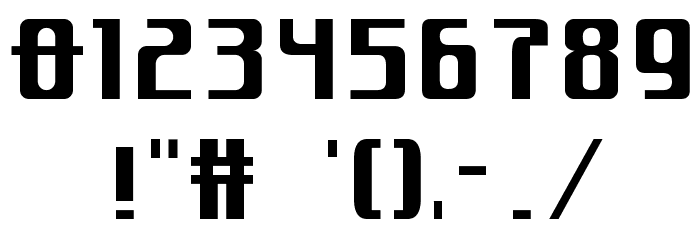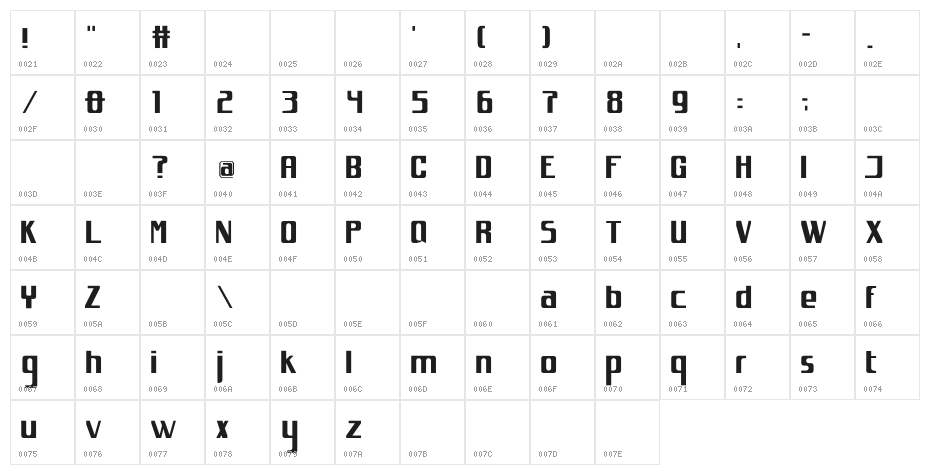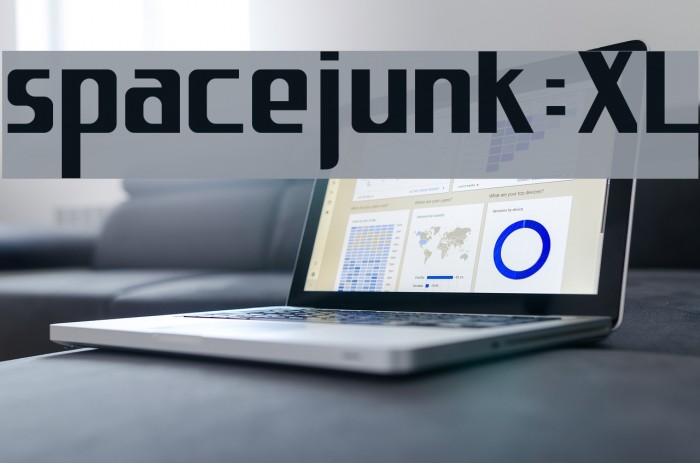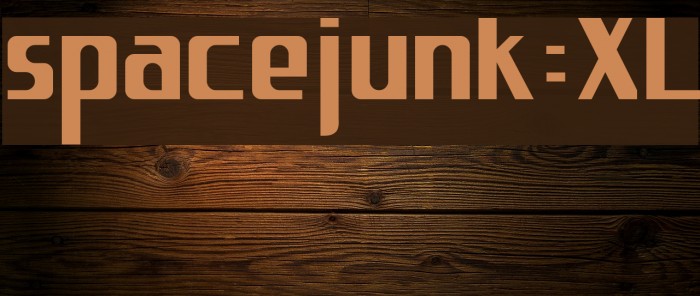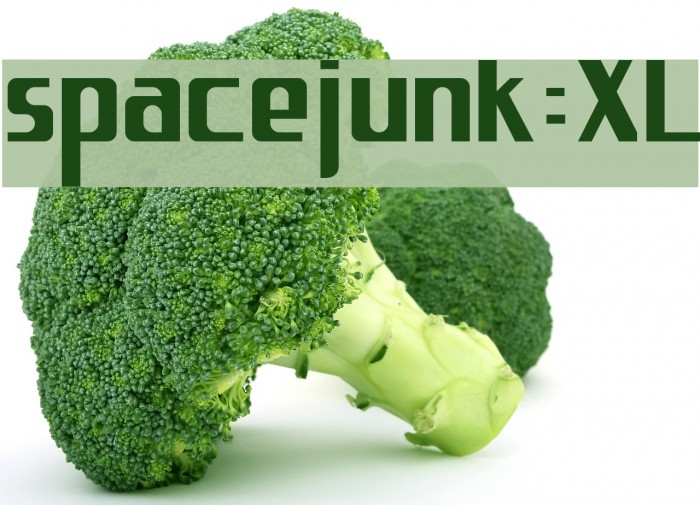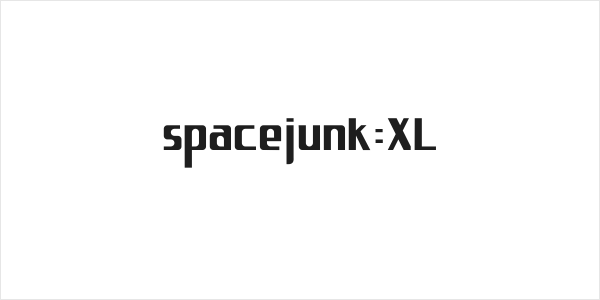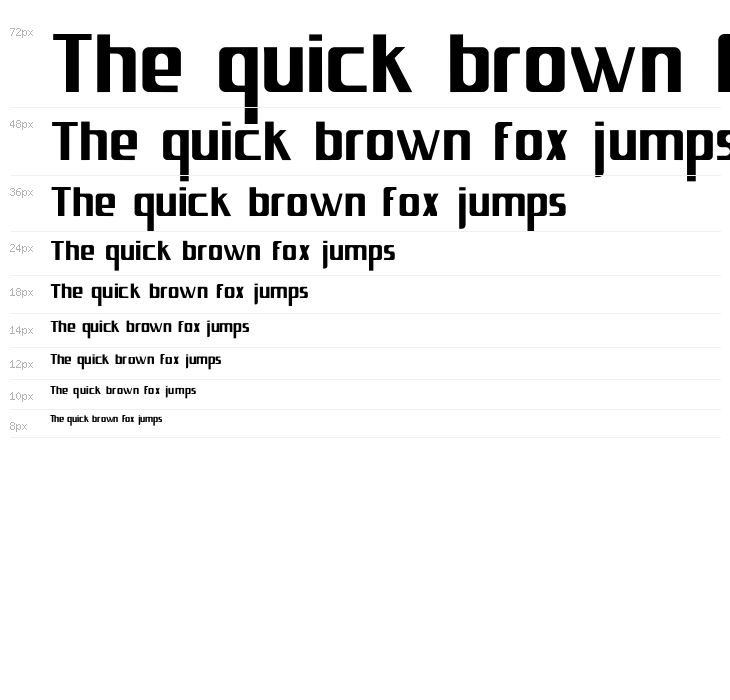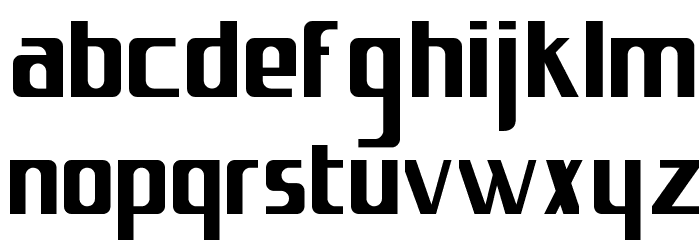
spacejunk:XL Font
spacejunk:XL Description
This font features a bold and modern design with a geometric structure. The characters are slightly condensed, giving it a compact appearance. The uppercase letters have a strong presence with consistent stroke widths, while the lowercase letters maintain a similar style with rounded edges. The numerals are clear and legible, matching the overall aesthetic. Special characters are distinct and integrate seamlessly with the rest of the typeface. This font's design is suitable for projects that require a contemporary and assertive look.
| Proposed Projects | Ideal for branding, headlines, posters, and digital media where a strong, modern presence is desired. |